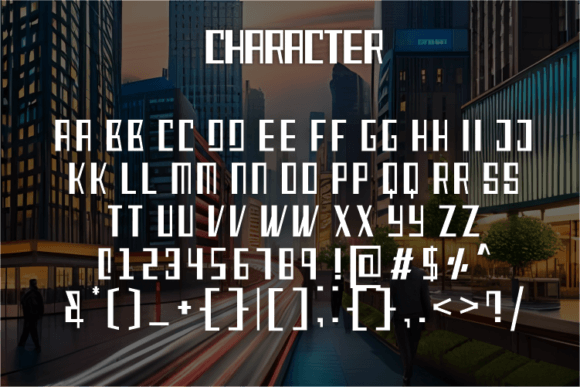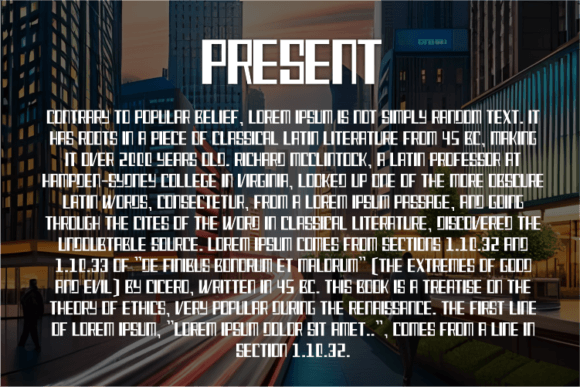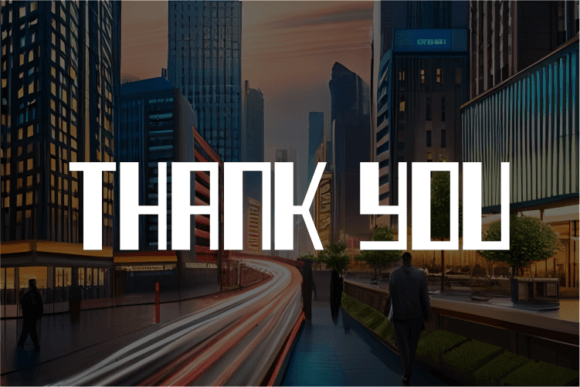
Introduction to Robotwar Font
Introducing “Robotwar Font Sans Serif,” a sleek and modern typeface inspired by the world of robotic warfare.
With its clean lines and futuristic appeal, this font exudes a sense of technological sophistication Perfect for high-tech branding, sci-fi designs, and cutting-edge digital projects.
Key Features of Robotwar Font